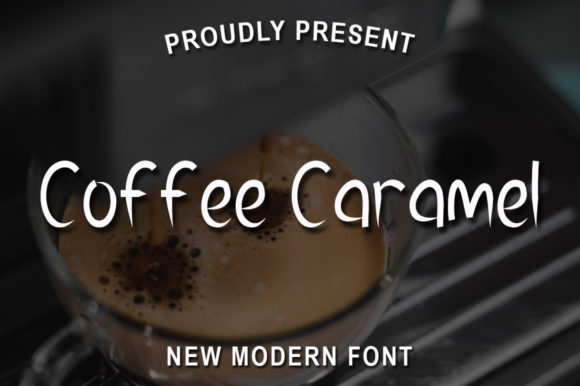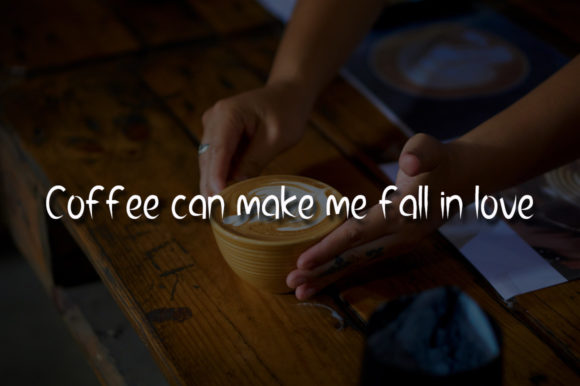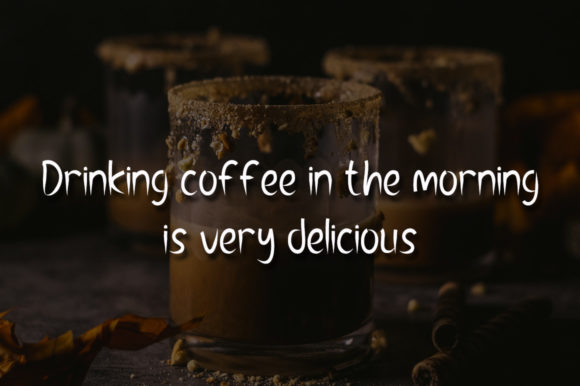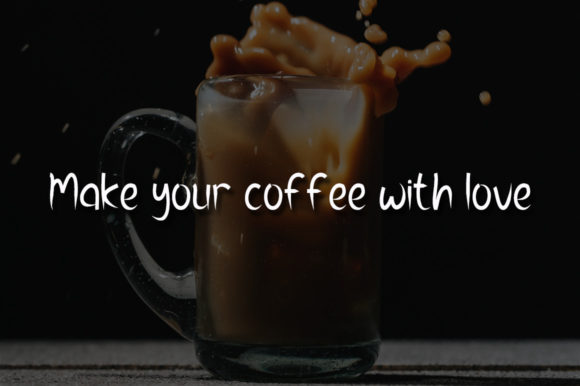
Coffee Caramel Font
About Coffee Caramel Font
Coffee Caramel is a cool, neat and trendy handwritten font. It can easily be matched to an incredibly large set of projects, so add it to your creative ideas and notice how it makes them stand out!